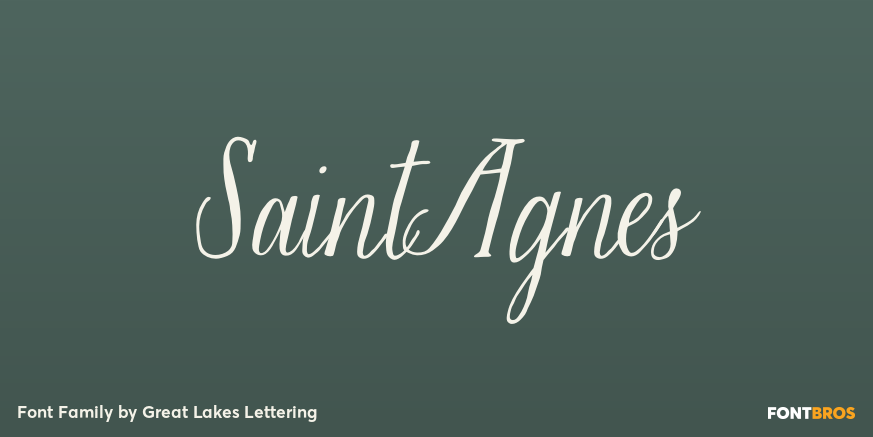
Saint Agnes
About Saint Agnes
Saint Agnes is quintessential Molly Jacques. It has the feeling of a Roman serif font, with the informal quality of a handwritten font. It\’s perfect for applications from scrapbooking to wedding invitations. It\’s got a formal yet handmade quality that…